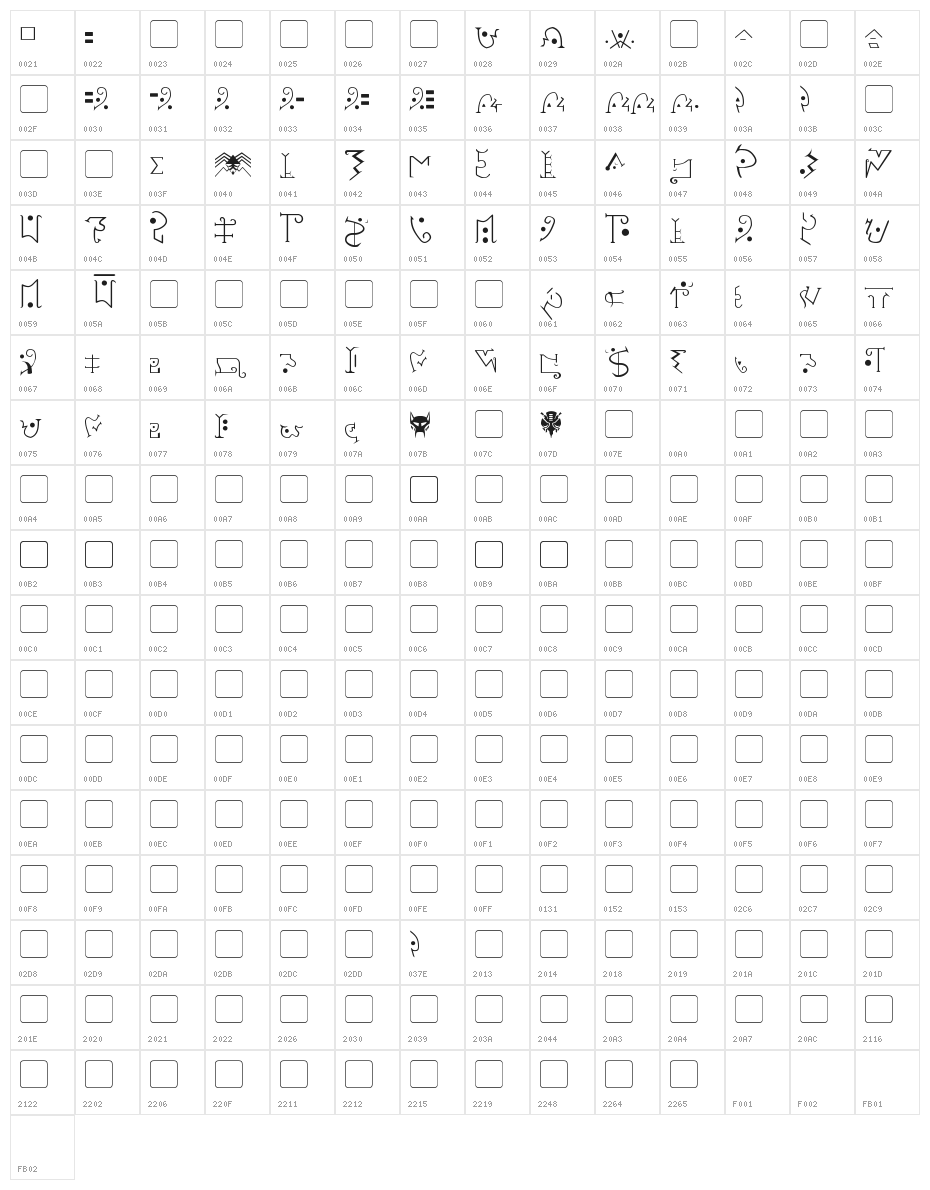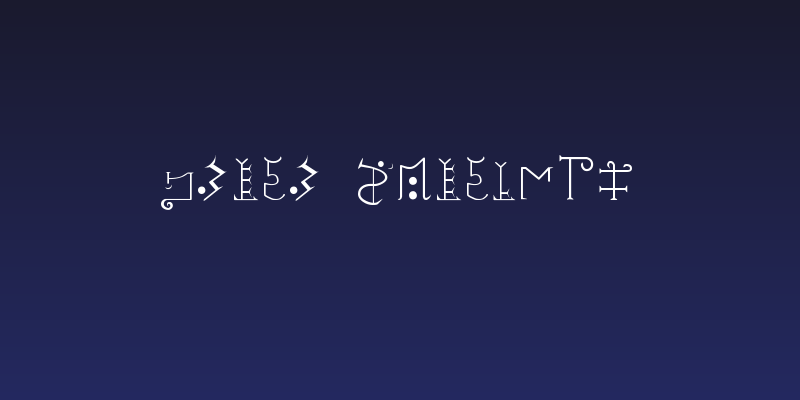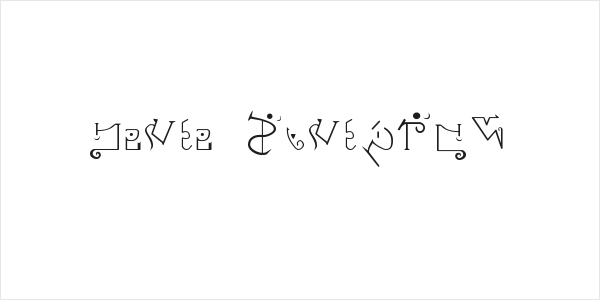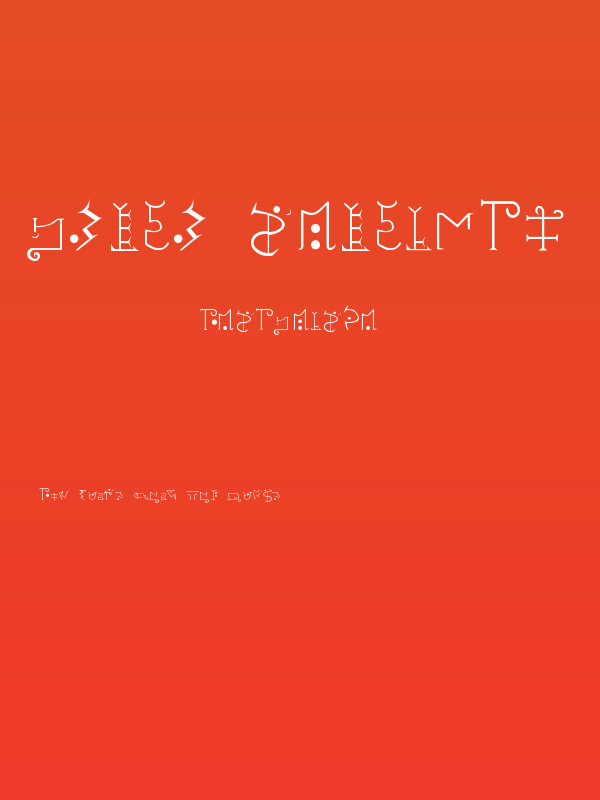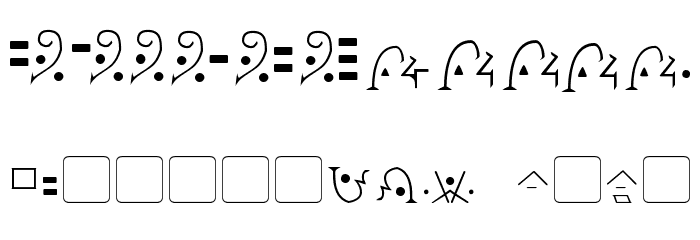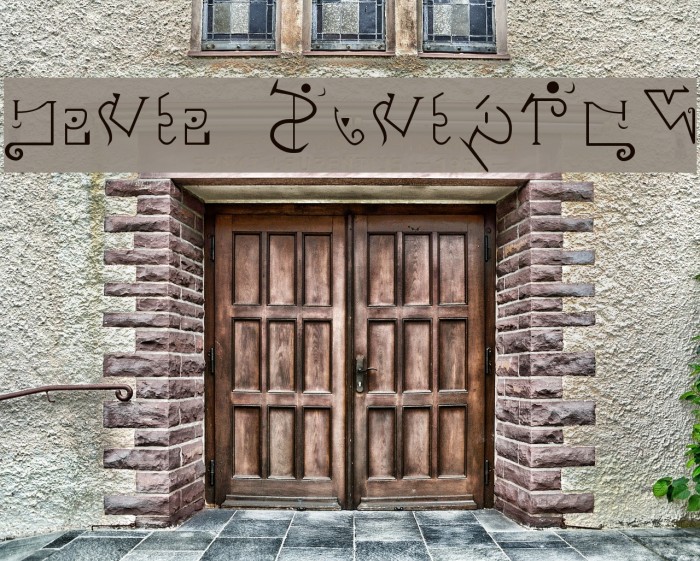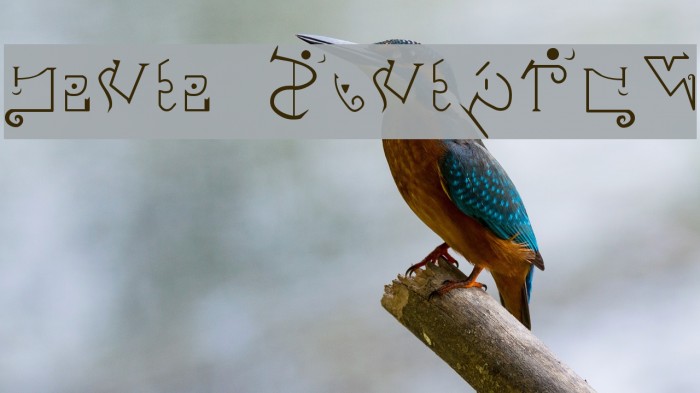
Giedi Predacon Font
| 用途 | Logos, Titles, Artistic projects |
| おすすめプロジェクト | Ideal for fantasy-themed projects, game design, movie posters, or any creative work requiring a mystical or otherworldly aesthetic. |